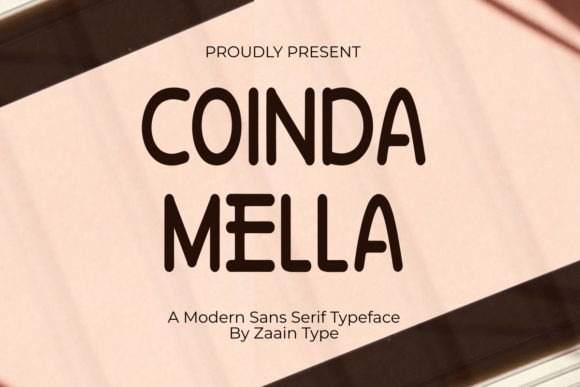
Discover the Timeless Elegance of Coinda Mella Font
Imagine you’re in the midst of a creative brainstorming session, surrounded by ideas and inspiration. The perfect font to elevate your design is just a click away. Enter Coinda Mella Font, a sophisticated sans serif font that effortlessly blends simplicity with modernity.
Coinda Mella Font is more than just a font – it’s a versatile tool for designers looking to infuse their work with a touch of sophistication. With its impeccable readability, clean aesthetic, and comprehensive character set, this font seamlessly integrates with branding elements, web designs, and print media. Whether you’re working on a small project or a large-scale campaign, Coinda Mella Font is the perfect choice to make your designs stand out.
Coinda Mella Font Key Features
- Font Family: Coinda Mella is a sans-serif font family, designed to be highly legible and versatile.
- Unique Characteristics: Coinda Mella features a clean, modern design with subtle rounded edges and a highly legible x-height, making it ideal for digital and print applications.
Coinda Mella Font Review
I’ve had the chance to work with the Coinda Mella font, and I must say it’s an interesting addition to any design project.
✨ What works well: The Coinda Mella font has a unique blend of modern and vintage elements, which can add a touch of sophistication to any design. The font’s versatility allows it to be used in a variety of contexts, from headings to body text. Additionally, the font’s readability is quite good, making it suitable for both digital and print media.
- The font’s unique aesthetic makes it stand out in a crowded market.
- Its versatility makes it easy to incorporate into various design projects.
- Readability is excellent, making it suitable for a range of applications.
⚠️ Limitations: While the Coinda Mella font is unique and versatile, it may not be the best choice for projects that require a more neutral or minimalist aesthetic. Additionally, the font’s complexity can make it difficult to pair with other fonts, which may limit its use in certain design contexts.
Overall, I think the Coinda Mella font is a great addition to any designer’s toolkit. While it may not be suitable for every project, its unique aesthetic and versatility make it a valuable asset for designers looking to add some visual interest to their work.
Tips for Getting the Most Out of Coinda Mella Font
1. Experiment with different font sizes and styles to achieve the desired effect.
2. Pair the Coinda Mella Font with other fonts to create a visually appealing combination.
3. Use the font to add a touch of elegance and sophistication to your designs.
1. Wedding invitations and stationery
2. Luxury branding and marketing materials
3. High-end packaging and labeling
Alternatives to Coinda Mella Font
Great Vibes is a modern, elegant script font suitable for wedding invitations, quotes, and other creative projects. It’s ideal for designers who want a touch of sophistication and elegance in their designs. Great Vibes is more refined and polished compared to Coinda Mella Font, which has a more playful and whimsical feel.
Pacifico is a beautiful, handwritten font with a beachy, tropical vibe. It’s perfect for designers who want to create a relaxed, laid-back atmosphere in their designs. Compared to Coinda Mella Font, Pacifico has a more refined and sophisticated feel, making it suitable for a wider range of projects.
Carolyna Pro is a modern, elegant script font with a touch of sophistication and glamour. It’s ideal for designers who want to create high-end, luxurious designs. Compared to Coinda Mella Font, Carolyna Pro has a more refined and polished feel, making it suitable for projects that require a high level of elegance and sophistication.
Does Coinda Mella support Unicode characters?
Yes, Coinda Mella supports a wide range of Unicode characters, including Latin, Cyrillic, and Greek alphabets. This allows for easy use in multilingual designs and applications.